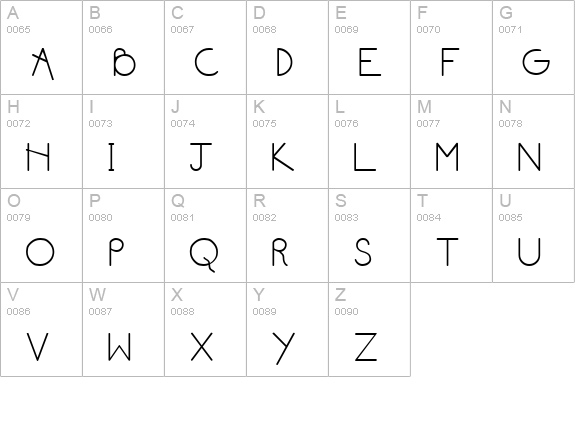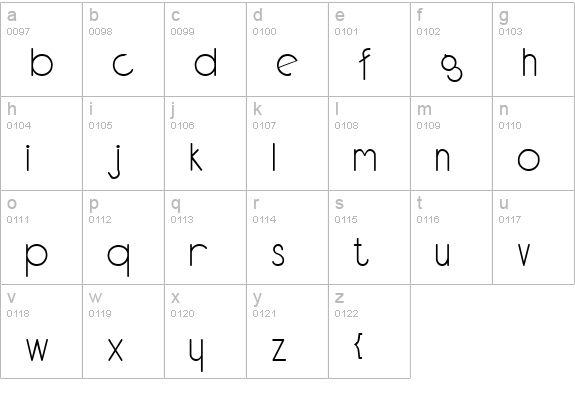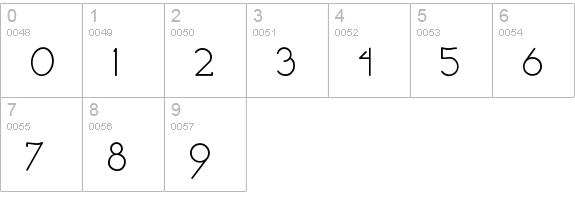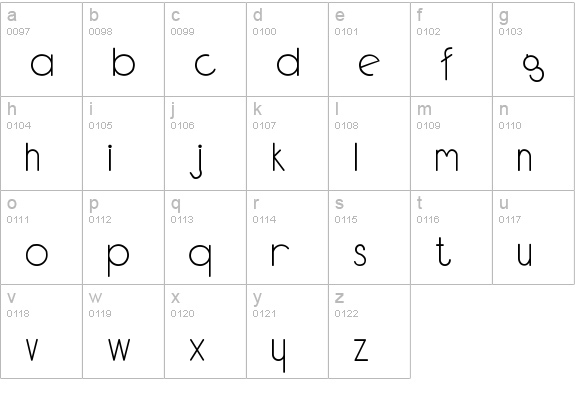
NeuSansLight Font Details
NeuSansLight is a sleek and modern typeface that exudes elegance and sophistication. Its clean lines and minimalistic design make it the perfect choice for a wide range of projects, from branding to editorial design. The light weight of this font adds a touch of subtlety and refinement to any text, making it a versatile option for both digital and print applications. What makes NeuSansLight even more appealing is that it is available for free download at FontsMarket.com. This means that you can easily access this high-quality font without any cost, making it a valuable asset for designers, developers, and creatives looking to enhance their projects with a touch of sophistication. Don't miss out on the opportunity to elevate your designs with NeuSansLight – download it for free today at FontsMarket.com!